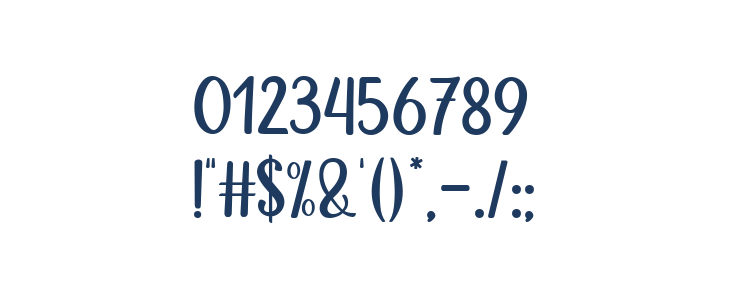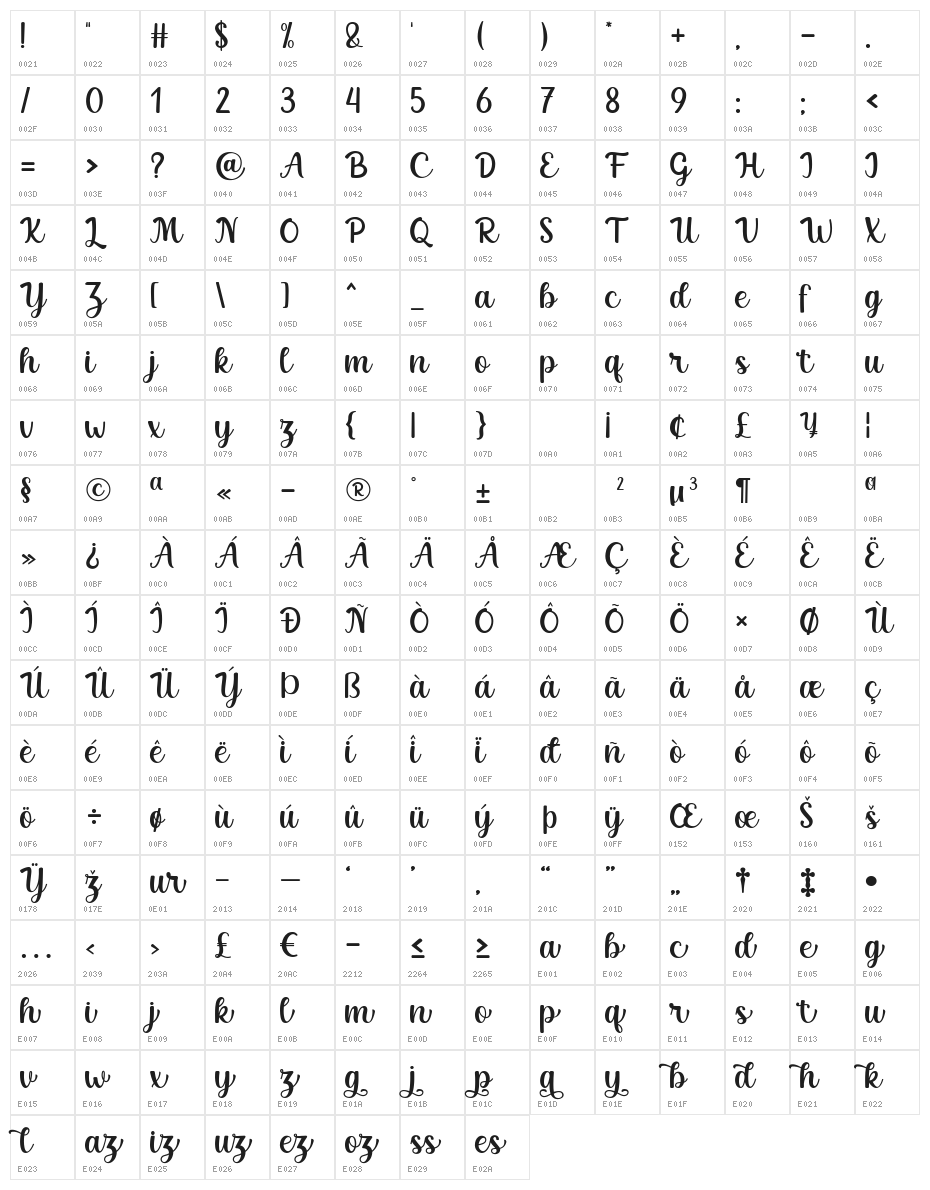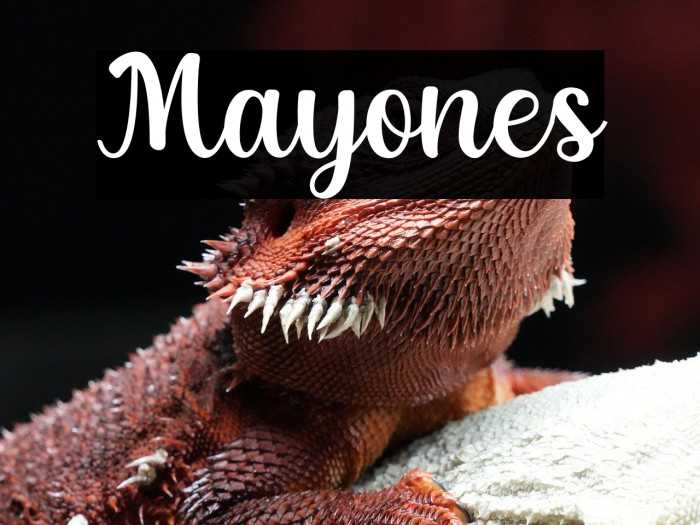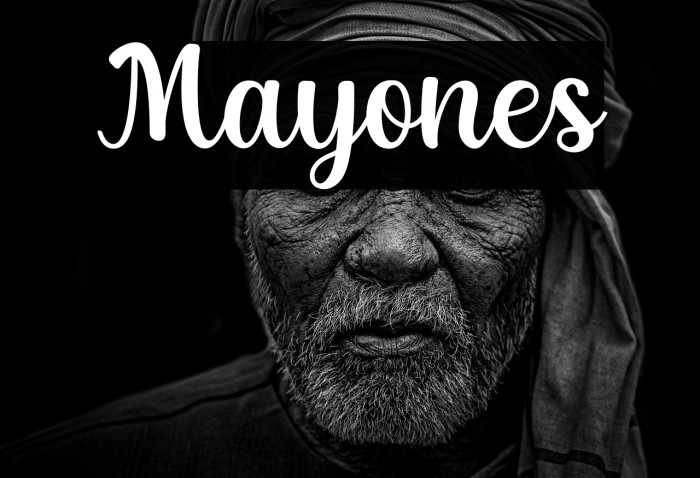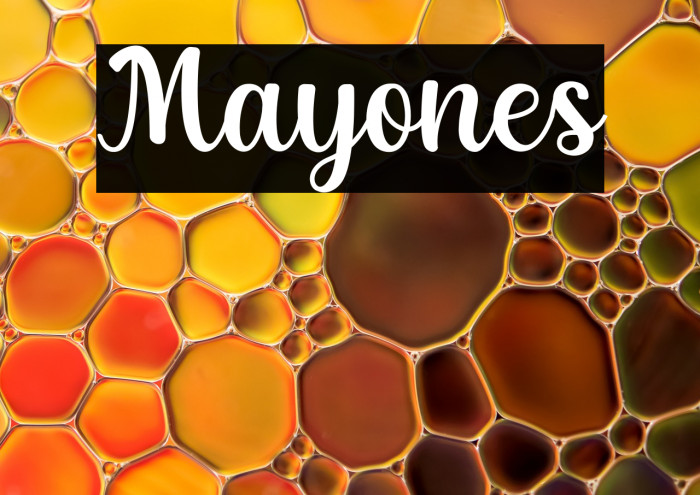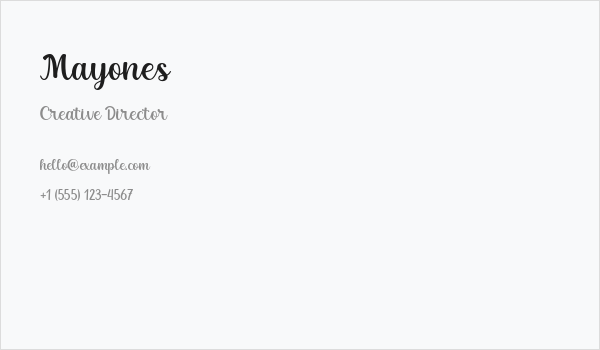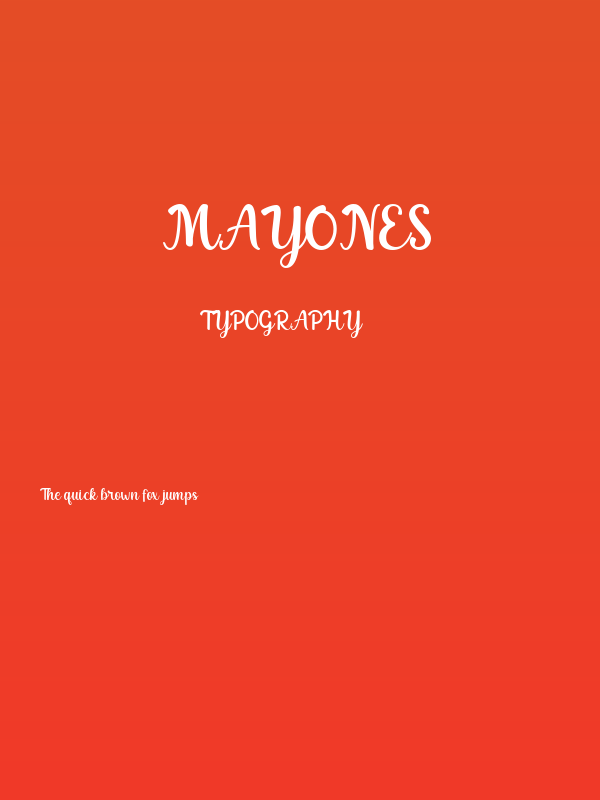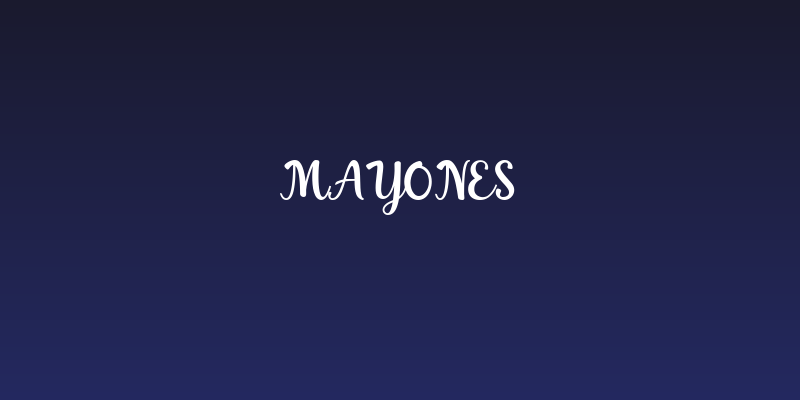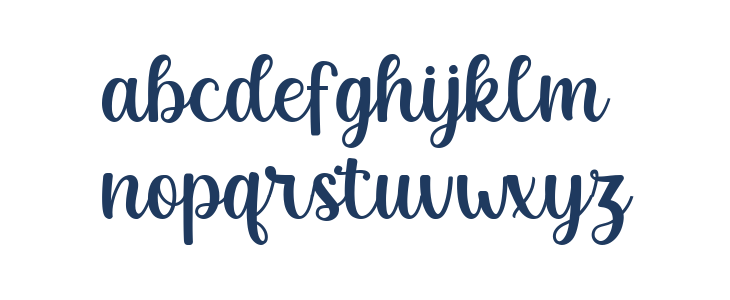
Mayones Font
Mayones Description
This font features a playful and flowing script style with a handwritten feel. The uppercase letters are bold and slightly slanted, giving a sense of movement and dynamism. The lowercase letters maintain a consistent stroke width, enhancing readability while preserving the casual, friendly aesthetic. Numbers are clear and well-defined, complementing the overall style. Special characters are creatively integrated, maintaining the font's cohesive look. This font is ideal for projects that require a personal touch, such as invitations, greeting cards, or branding materials.
| Overall Style | Playful, Casual |
| Proposed Projects | Ideal for invitations, greeting cards, branding, and personal projects. |